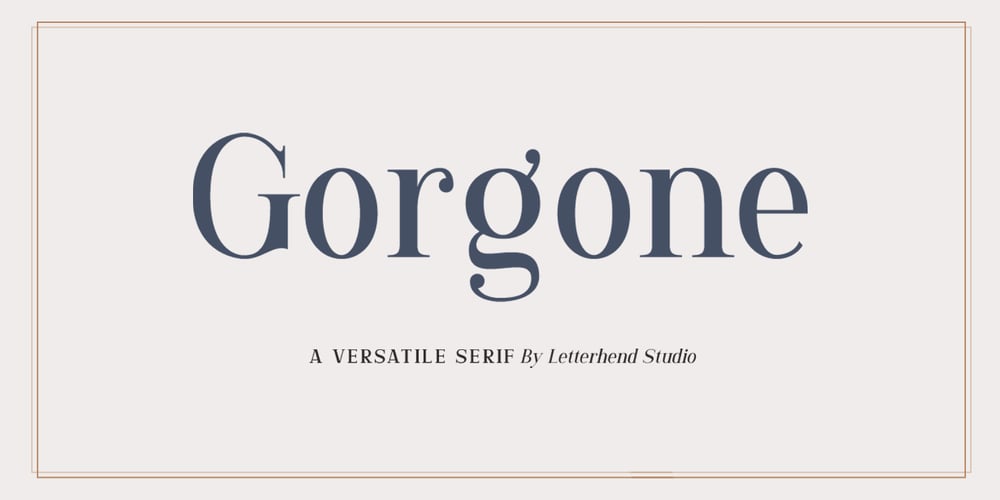
Gorgone Font Family was designed by Hendry Juanda, Sarid Ezra and published by Letterhend. Gorgone contains 4 styles and family package options. Gorgone, a versatile serif that brings the luxury feel. Gorgone is suitable for headlines, logotypes, apparel, invitations, branding, packaging, advertising and more. This typeface is comes in uppercase, lowercase, punctuations, symbols & numerals, stylistic set alternate, ligatures, and also multi-lingual support and is already PUA encoded.